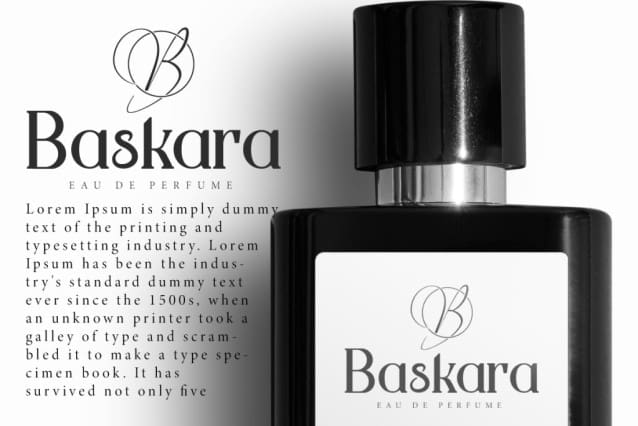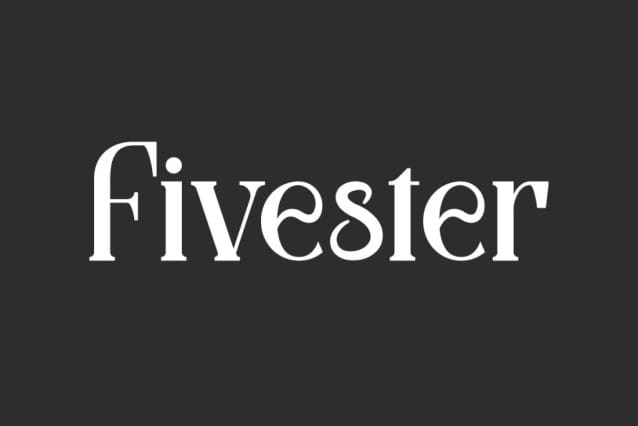
Fivester Font
Fivester Font is a stunning elegant serif display font with mysterious vibes. This font can give a luxurious impression and can be paired with various types of fonts to give the best appearance. It will suits many designs, such as brochure, custom design, gift box, invitation, label, product packaging, quote, screen printing, signage, stationery, website, and more!
Fivester Font includes full set of Uppercase and Lowercase Basic Characters, Numerals, and Punctuation. This font is inspired by jewelry shines and will be suitable for many industries, such as accessories and jewelry, advertising, beauty product, event or wedding organizer, fashion, florist, furniture, handicraft, resort, restaurant, etc.